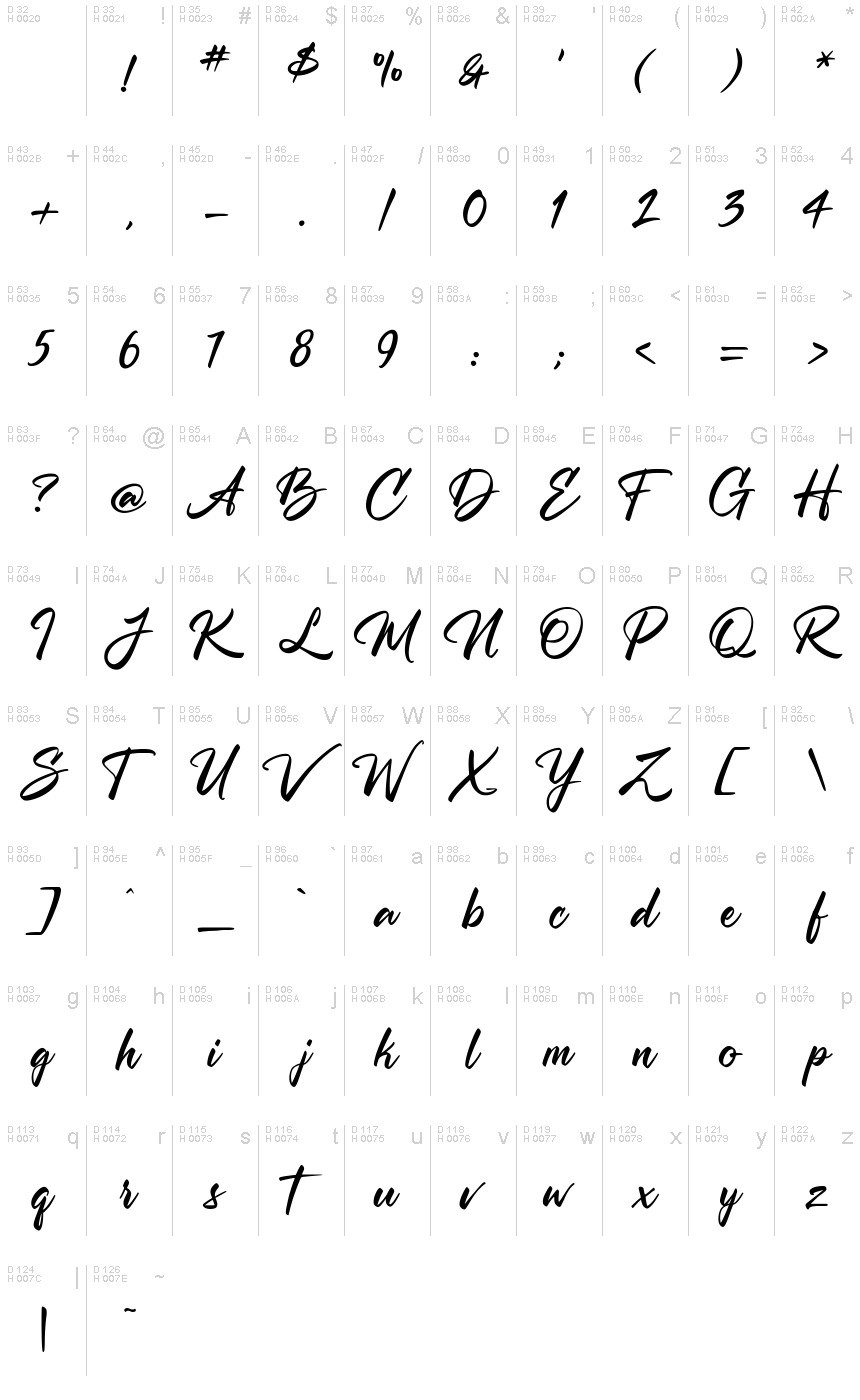
Cultural
Cultural, crafted by Cat.B, exudes a personal touch with its handwritten elegance. The flowing curves and natural variations in stroke imbue each character with an intimate, bespoke charm. This font dances between casual sophistication and artistic flair, making it a versatile choice for designs that require a human touch.
Whether gracing the pages of a heartfelt invitation or adding character to branding materials, Cultural's inviting presence is well-suited for projects that aim to convey authenticity and warmth. Its stylistic approach resonates particularly well in creative spaces such as book covers, editorial pieces, or artisan product packaging where a touch of individuality is cherished.